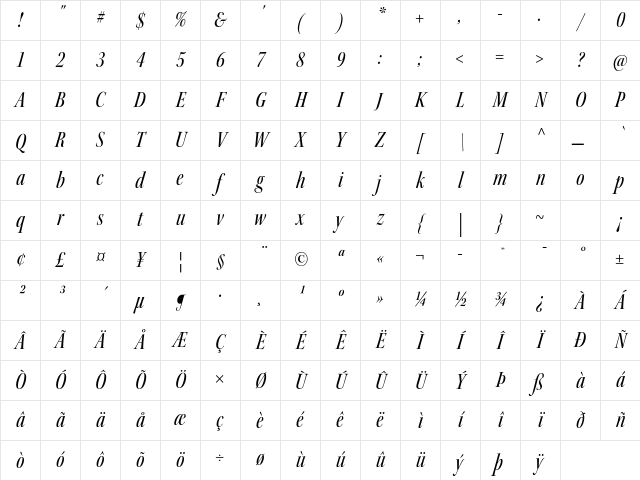
Kepler Std Medium Condensed Italic Display
Style: Medium Condensed Italic Display
Complete Kepler Std Medium Condensed Italic Display glyph index. Displaying only characters natively supported by Kepler Std Medium Condensed Italic Display font.
Design Context for Kepler Std
Kepler Std is built around its visual character rather than neutral utility - its distinctive forms are designed to make an impression at display sizes. The slanted form adds forward momentum and visual energy.
Font Pairing: Pair with a clean neutral sans-serif for body copy to let Kepler Std's character lead without overwhelming the composition.
Pro Tip: Use Kepler Std exclusively at display sizes - it was designed to be seen, not read at length. Let a neutral companion handle body copy.